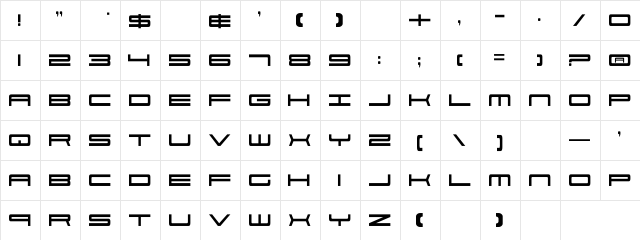
911 Porscha Regular
Design Context for 911 Porscha Typeface
911 Porscha offers clean, dependable letterforms without strong stylistic allegiance, making it a practical choice for designers who need flexibility.